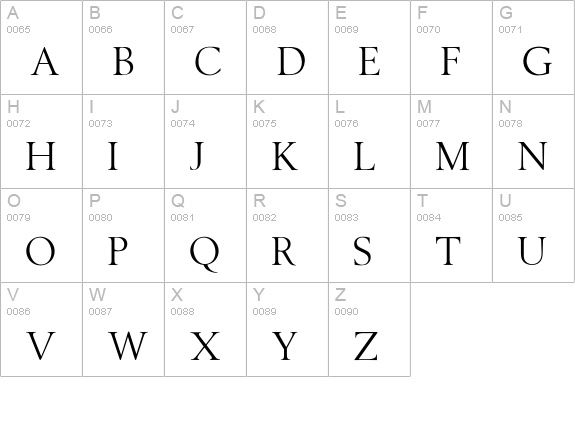
OPTIBerling-Agency Font Details
OPTIBerling-Agency is a stunning font that exudes elegance and sophistication. With its sleek lines and classic design, this font is perfect for adding a touch of refinement to any project. The sleek and professional look of OPTIBerling-Agency makes it ideal for use in branding, advertising, and editorial design. What sets OPTIBerling-Agency apart is that it is not only visually striking but also versatile and easy to read. Whether you're designing a logo, creating a poster, or working on a website, this font will elevate your work to the next level. Best of all, OPTIBerling-Agency is completely free to download at FontsMarket.com. Now you can enjoy the beauty and functionality of this exceptional font without any cost. Don't miss out on the opportunity to enhance your designs with OPTIBerling-Agency today!